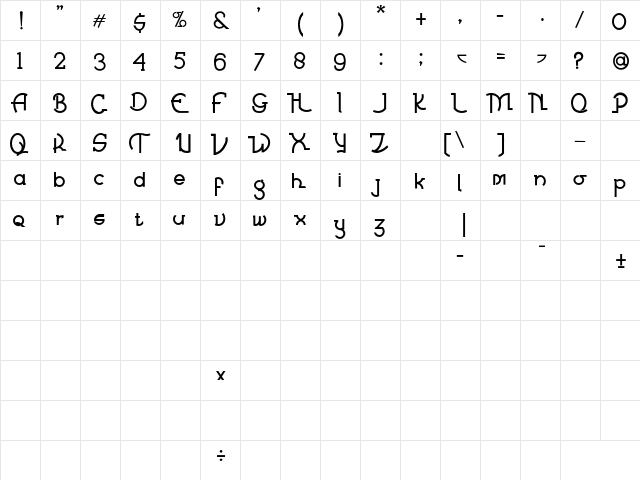
QUICKLLY Regular
| Designer | fatur083179 |
Design Context for QUICKLLY Typeface
QUICKLLY is a composed and adaptable typeface that performs quietly and consistently across a wide range of design contexts.